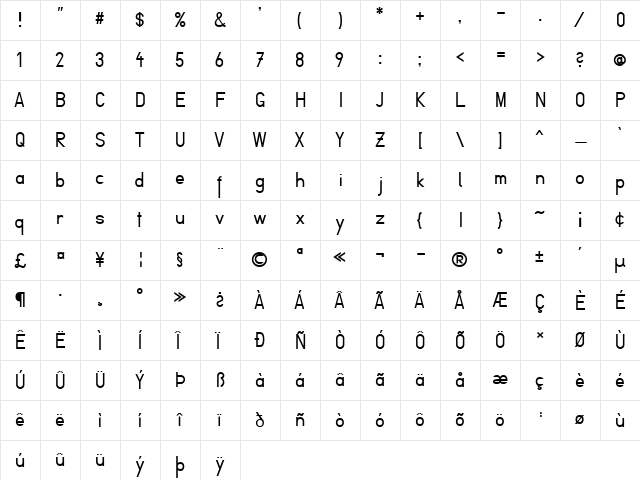
Fibel Vienna Regular
| Foundry | Peter Wioegel |
| Designer | Peter Wiegel |
| Year | 1912 |
Design Context for Fibel Vienna Typeface
Fibel Vienna offers clean, dependable letterforms without strong stylistic allegiance, making it a practical choice for designers who need flexibility.